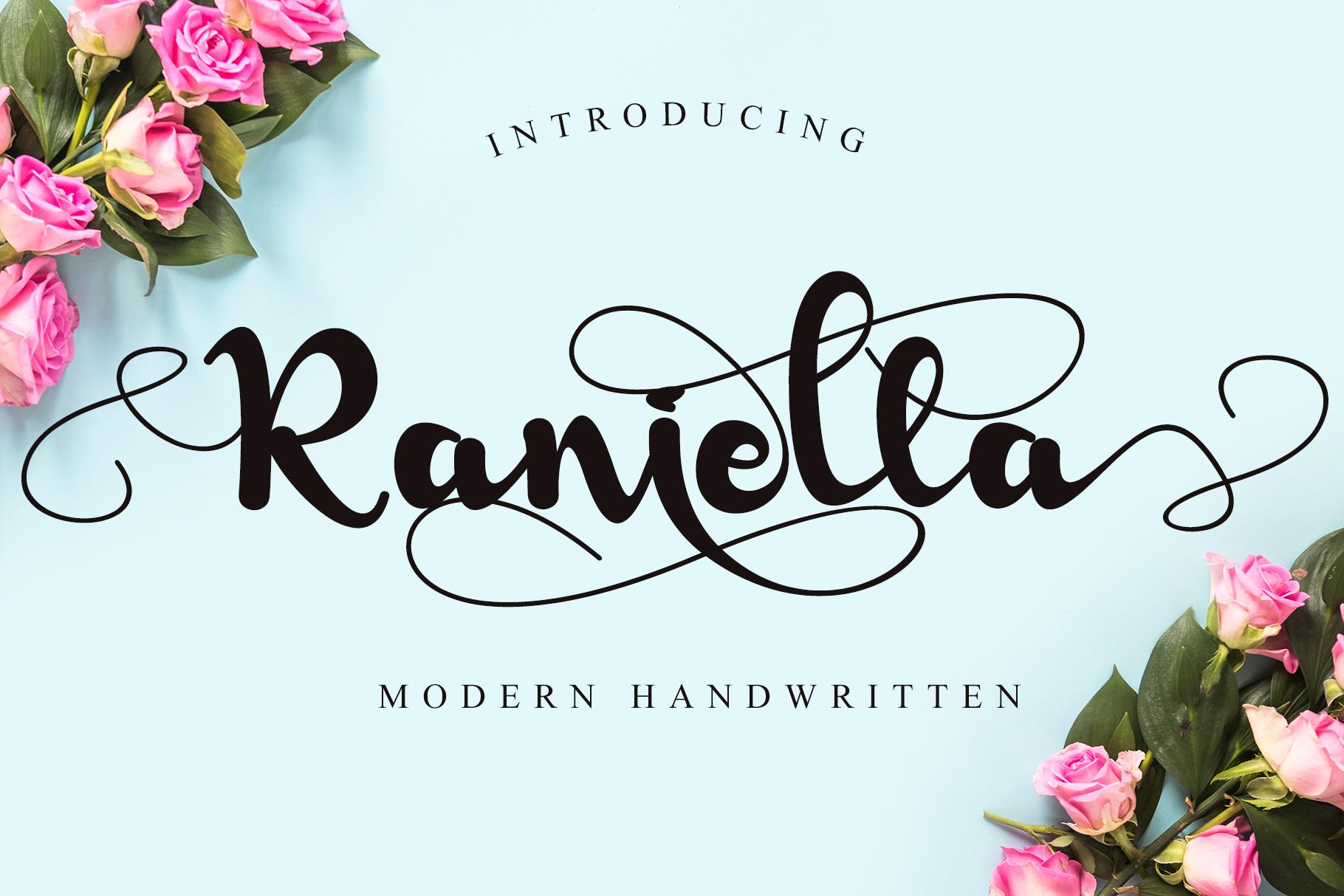
Raniella Font Description
Raniella is a sweet and cursive handwritten font. This gentle font will look gorgeous on a variety of design ideas. It will add a joyful and romantic touch to each of your projects! This font is PUA encoded which means you can access all of the glyphs and swashes with ease!